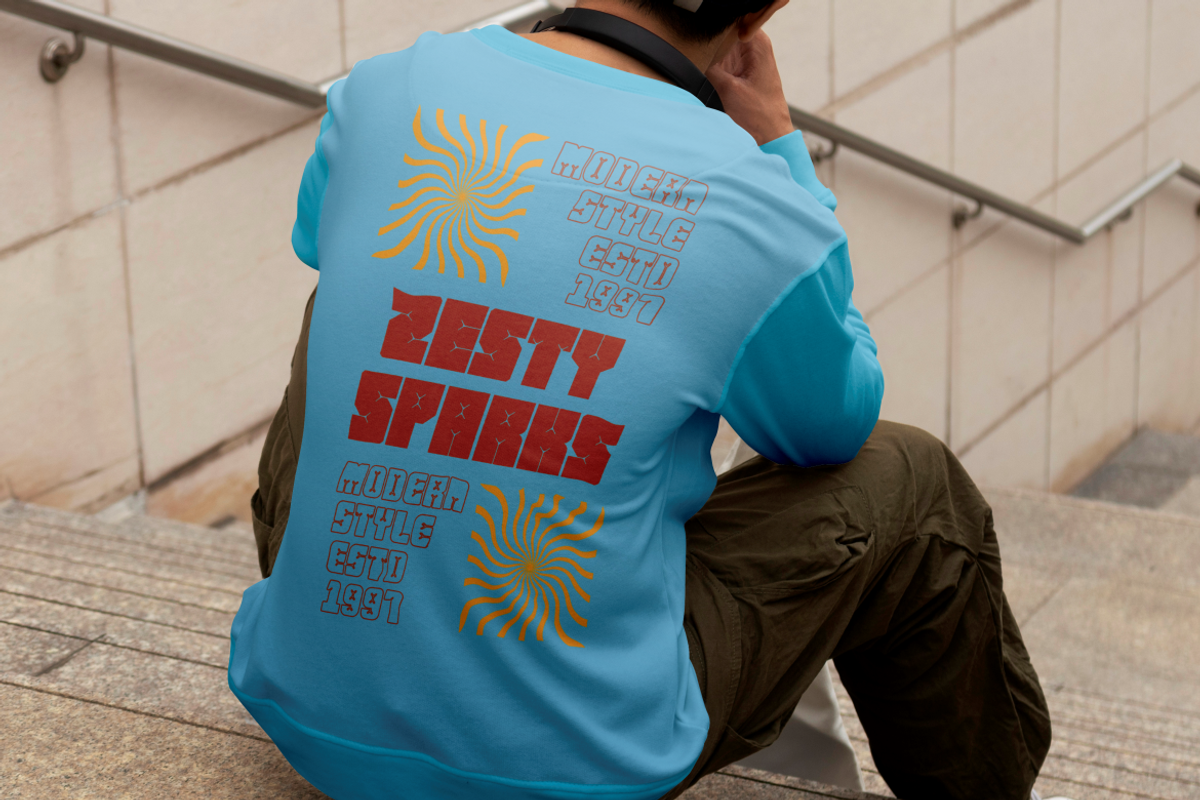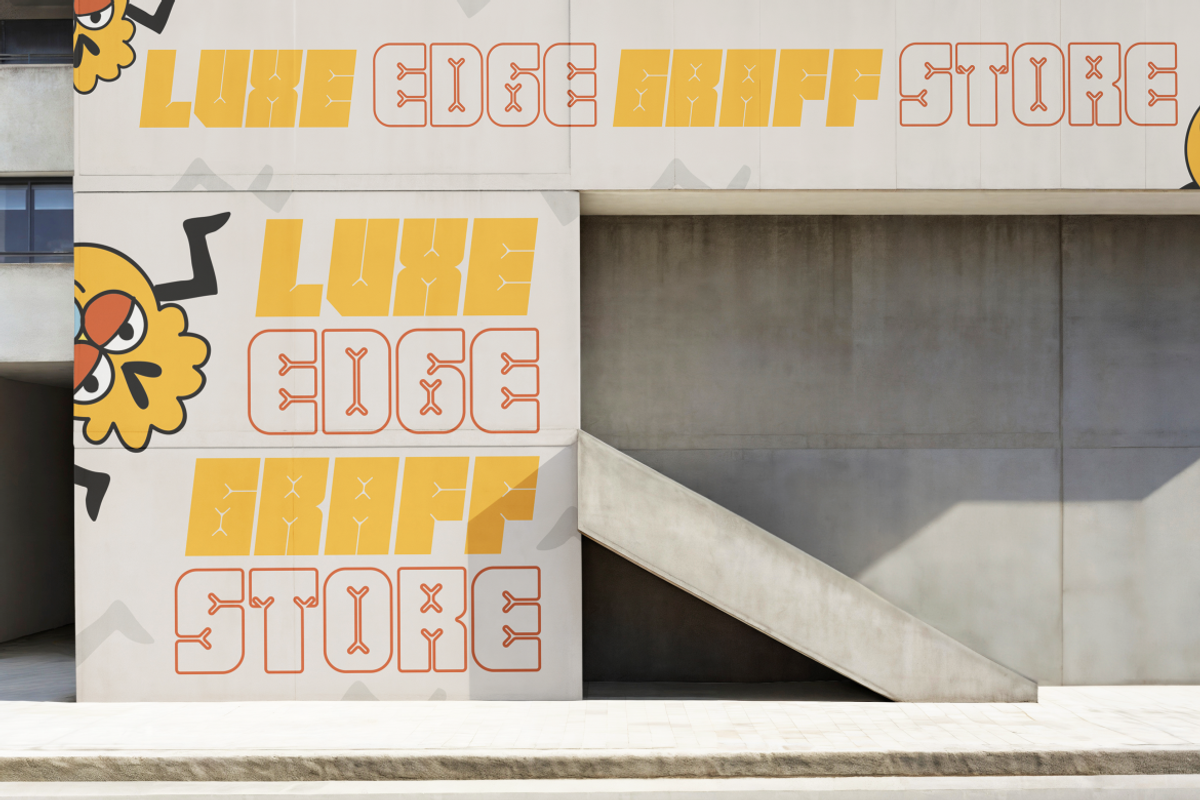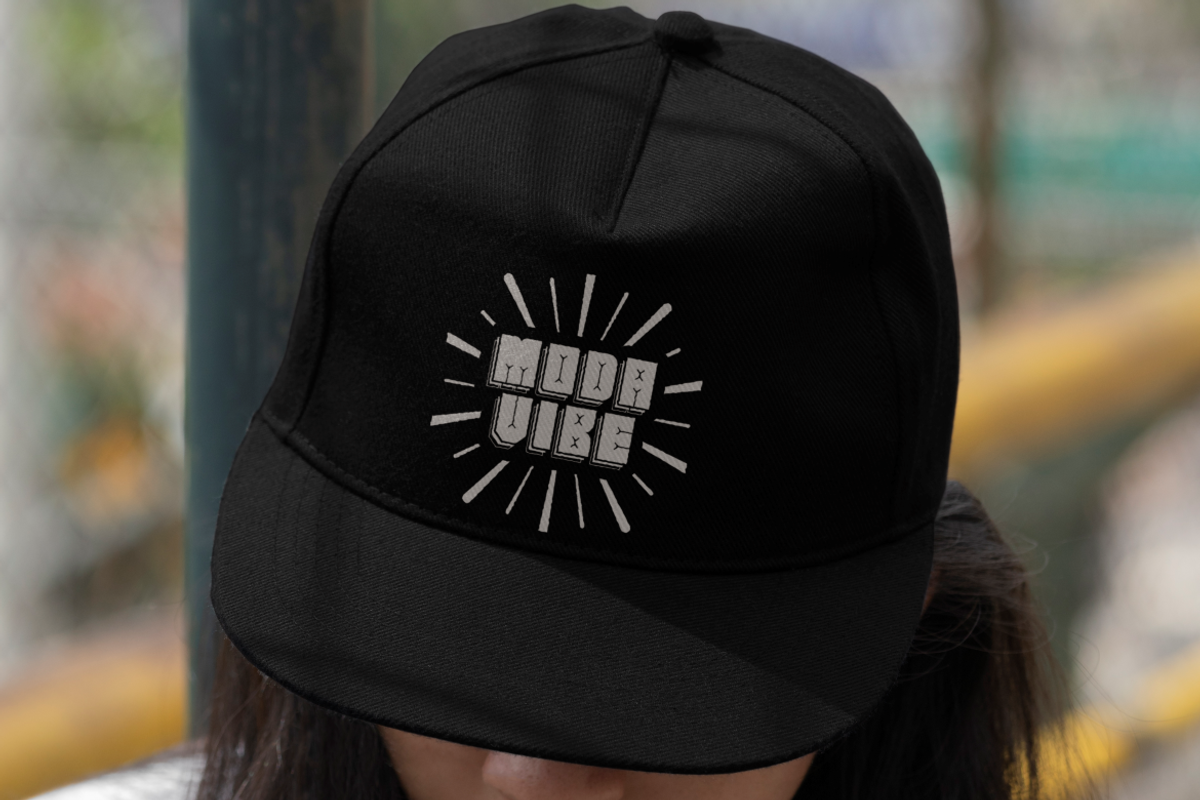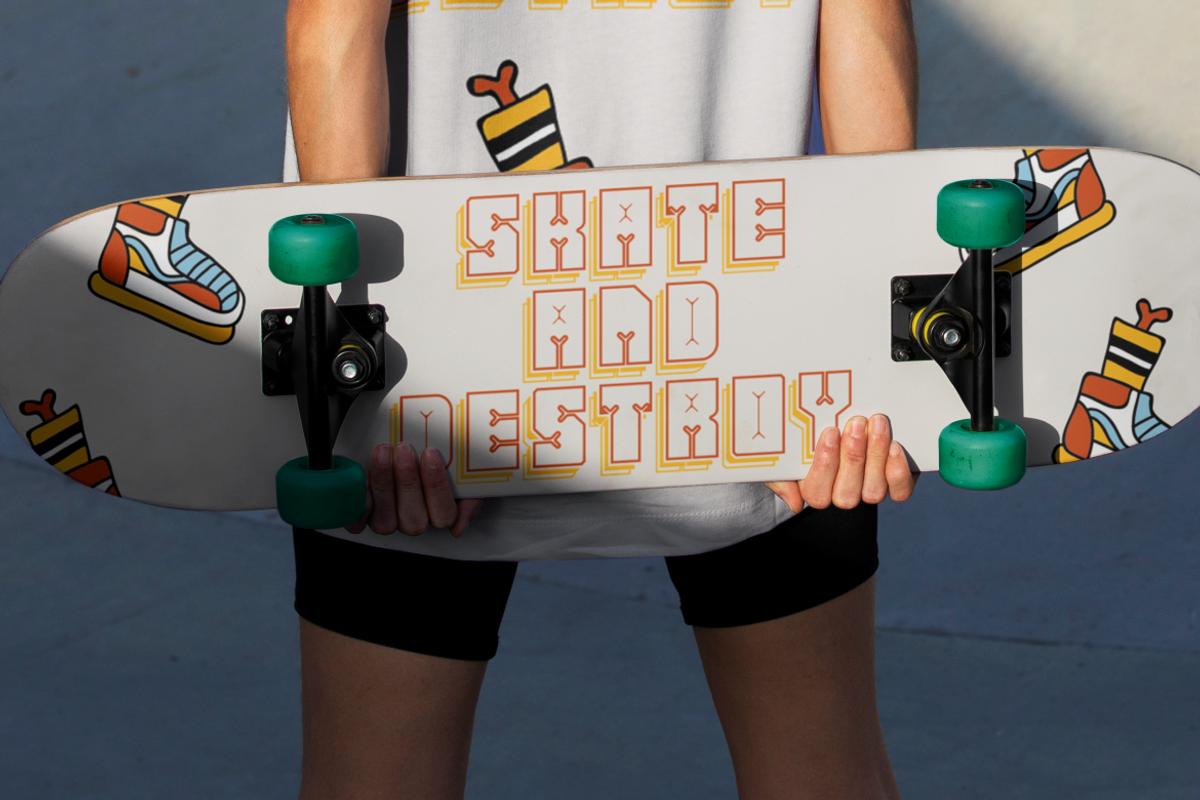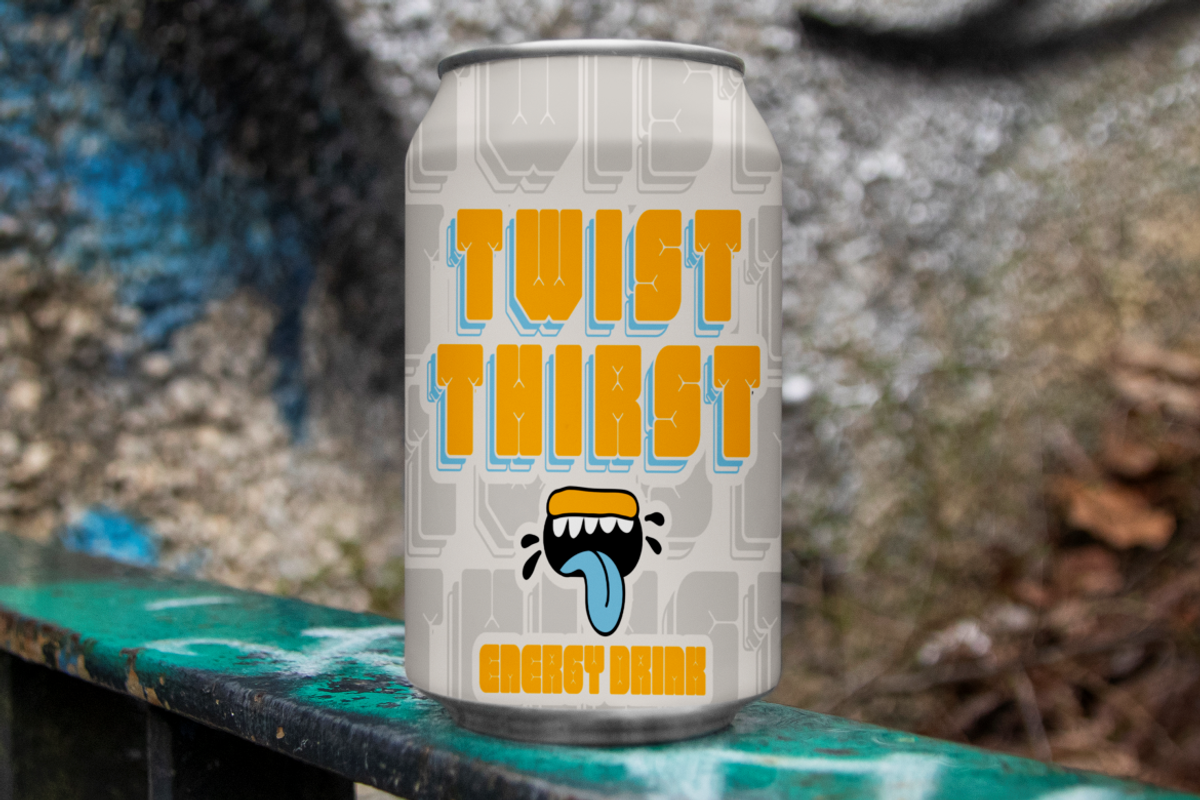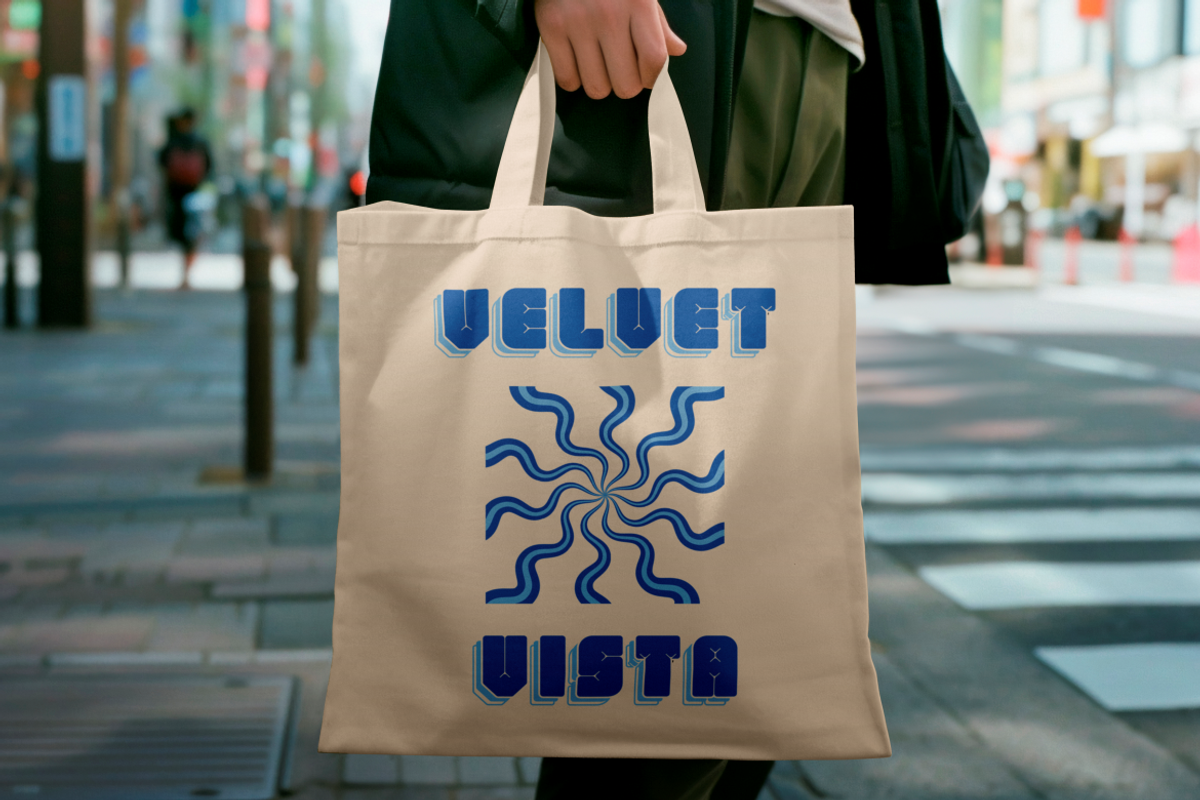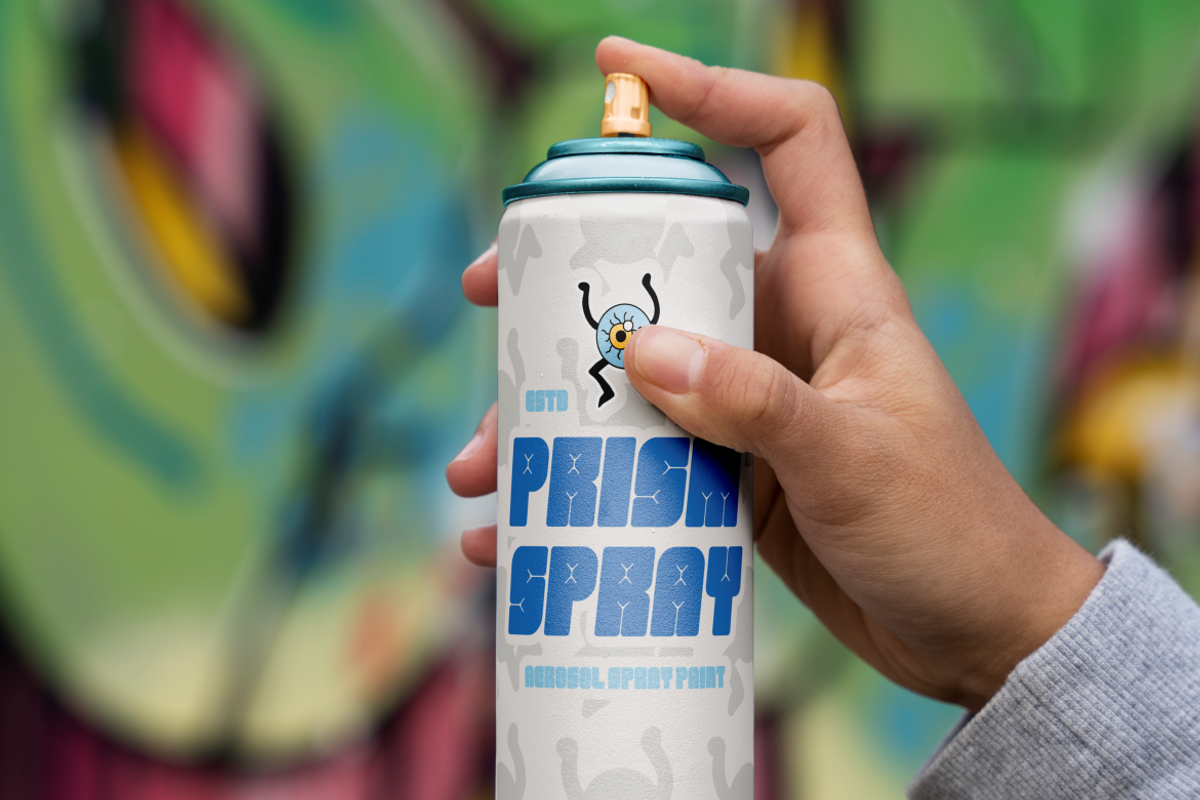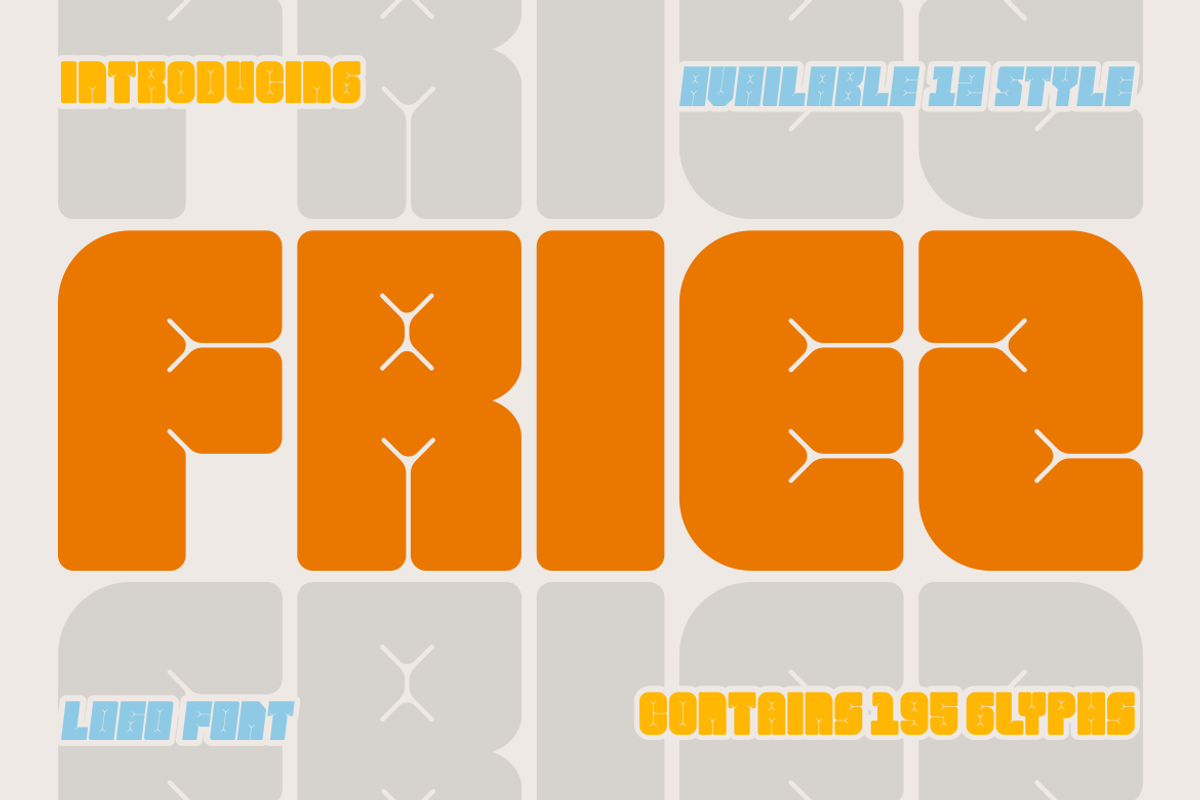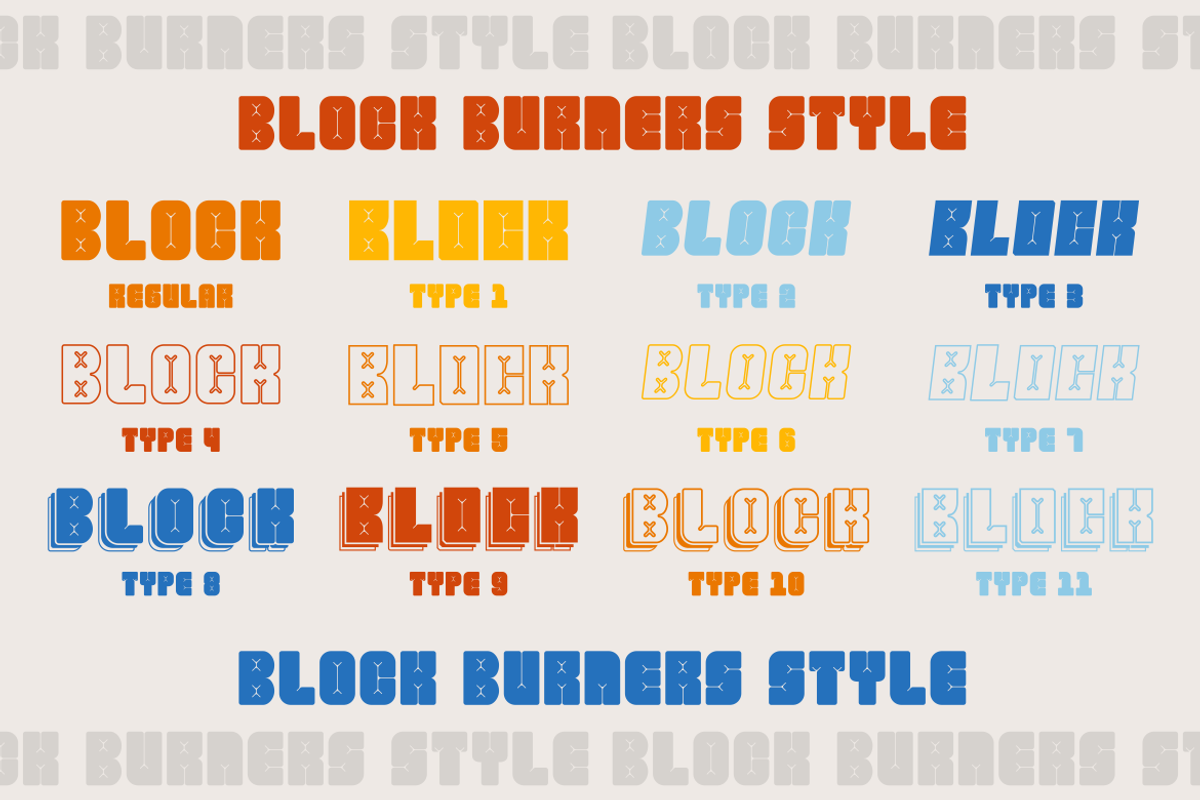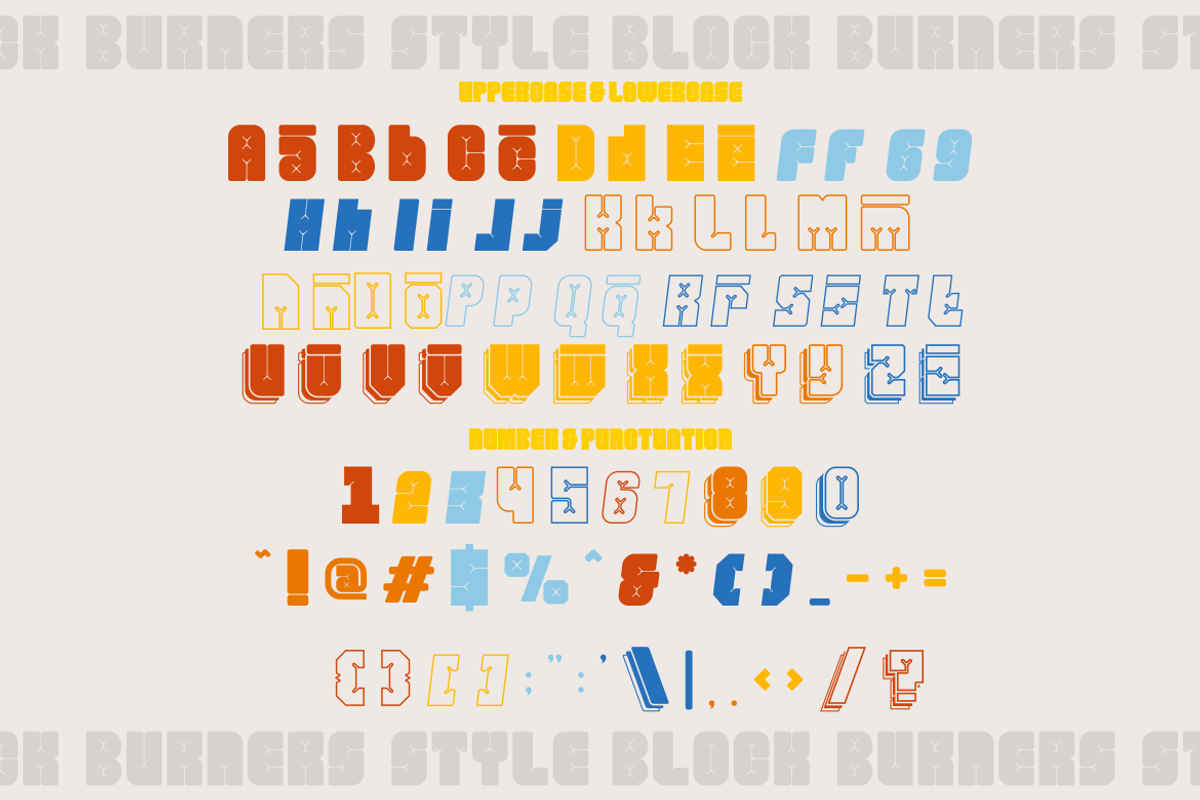
Friez - Logo Font
Introducing Friez - Logo Font: A vibrant addition to any designer’s toolkit, Friez exudes playfulness and boldness in every glyph. With its eye-catching display qualities, this font transforms any text into an engaging visual statement. Perfectly suited for crafting standout logos, branding materials, or captivating titles, Friez brings an element of fun to all your creative projects.
Crafted meticulously with versatility in mind, Friez stretches beyond mere aesthetics. Its robust character set containing 196 glyphs ensures versatility across various applications – from children’s books to magazine covers. Whether you’re designing packaging with personality or creating invitations that pop off the page, Friez - Logo Font delivers impact with its unmistakable presence. Its playful yet bold nature makes it ideal for businesses looking to make a memorable impression or crafters seeking that special touch for their handmade goods. Embrace the dynamic flair of Friez in your next project and watch your designs come alive!